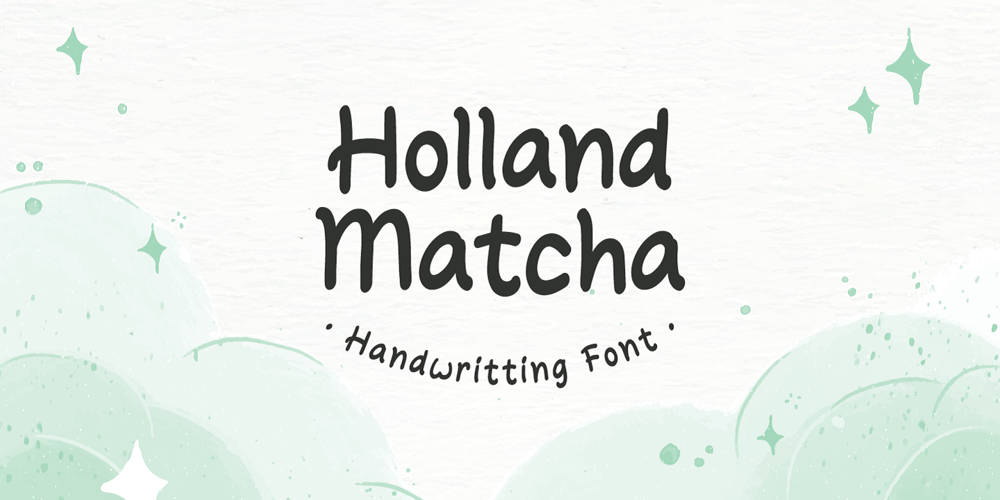
Holland Matcha Font Family was designed by Fadli Ramadhan Iskandar and published by Attype Studio. Holland Matcha contains 1 styles and family package options. “Holland Matcha” – the handwritten font that adds a touch of organic elegance and warmth to your food and beverage brand. Elevate your identity with this unique, memorable typeface and make your culinary creations truly stand out. Explore “Holland Matcha” today for an unforgettable brand transformation.Features :- Holland Matcha Font- Multilingual, US Roman, Latin 1 Support